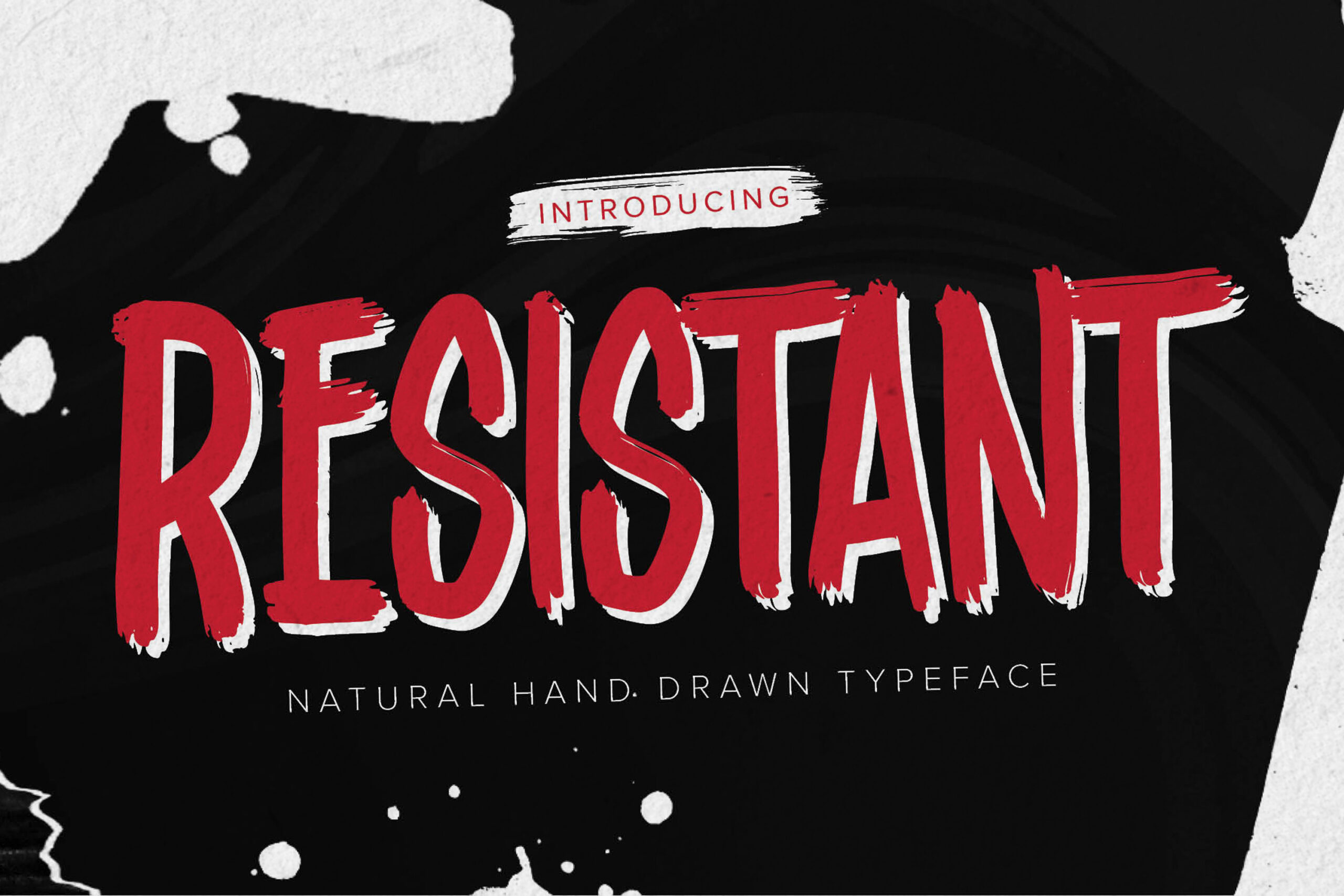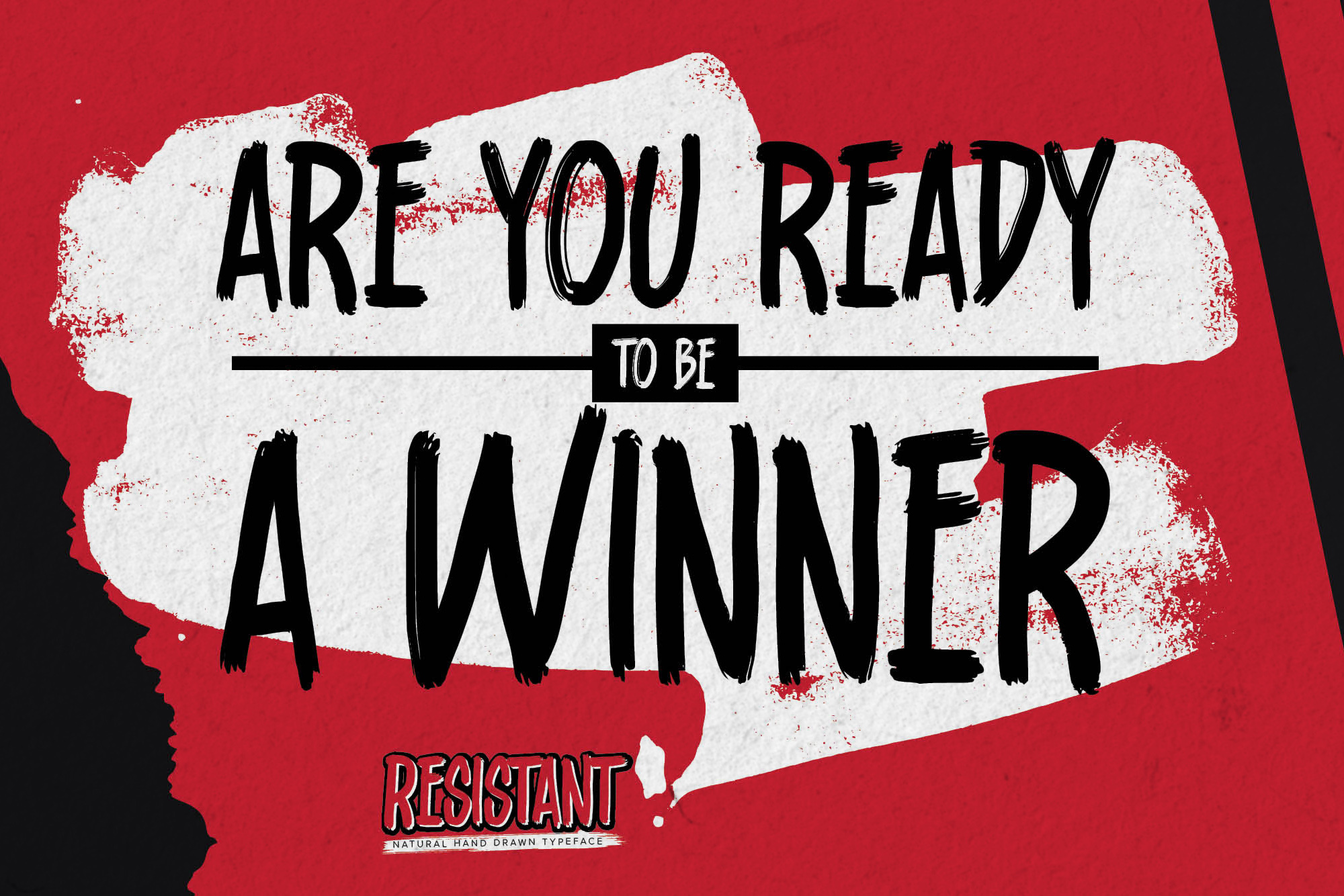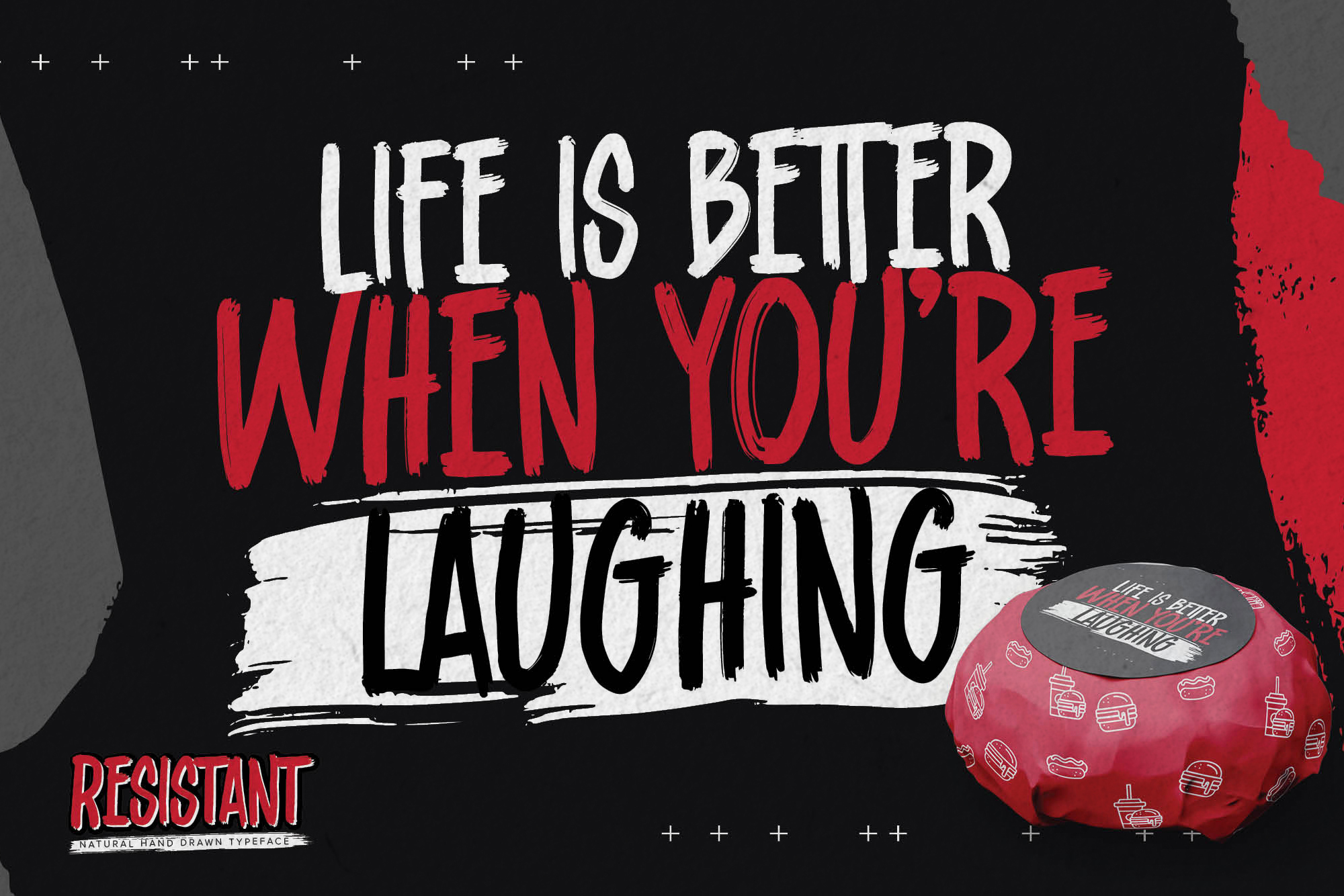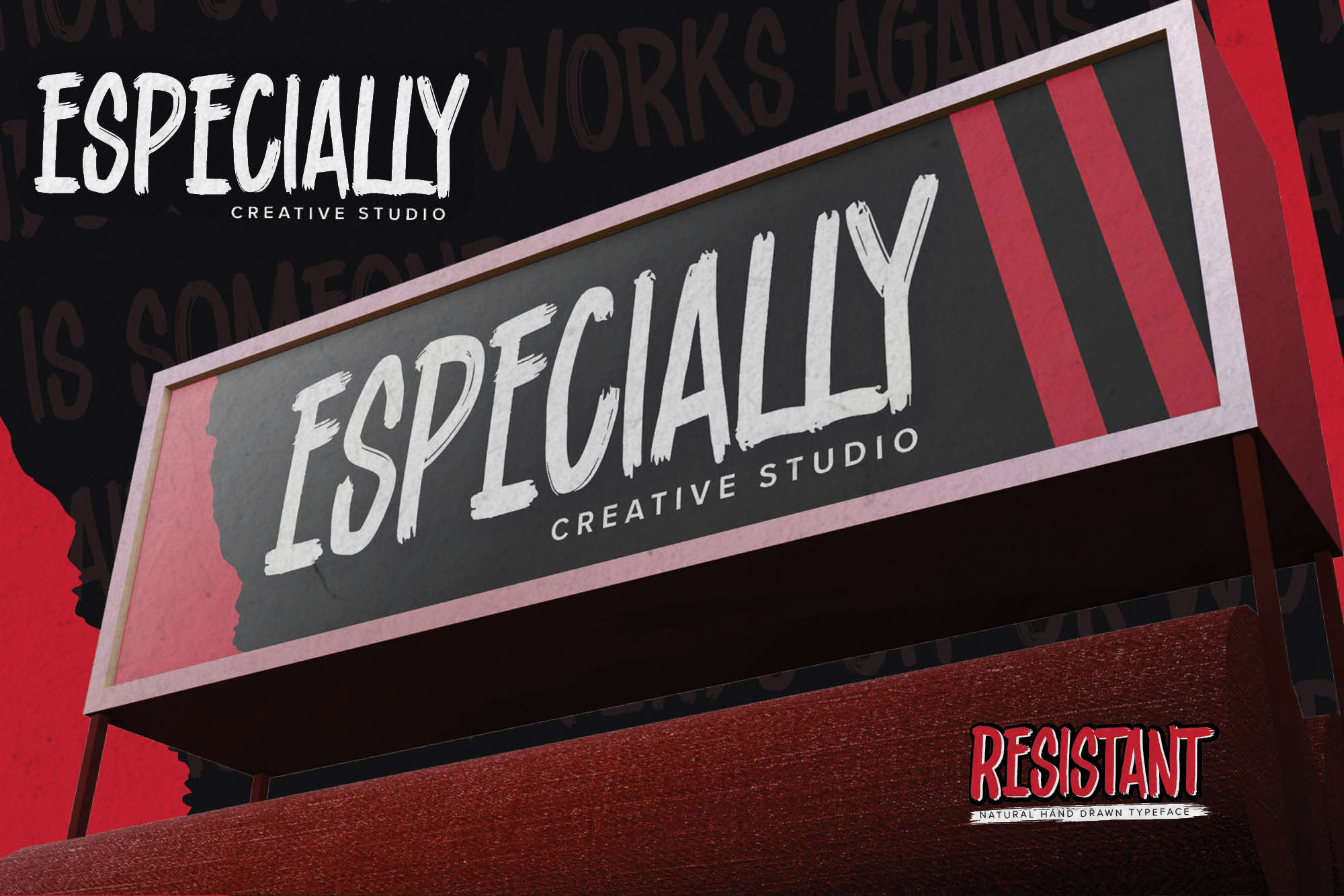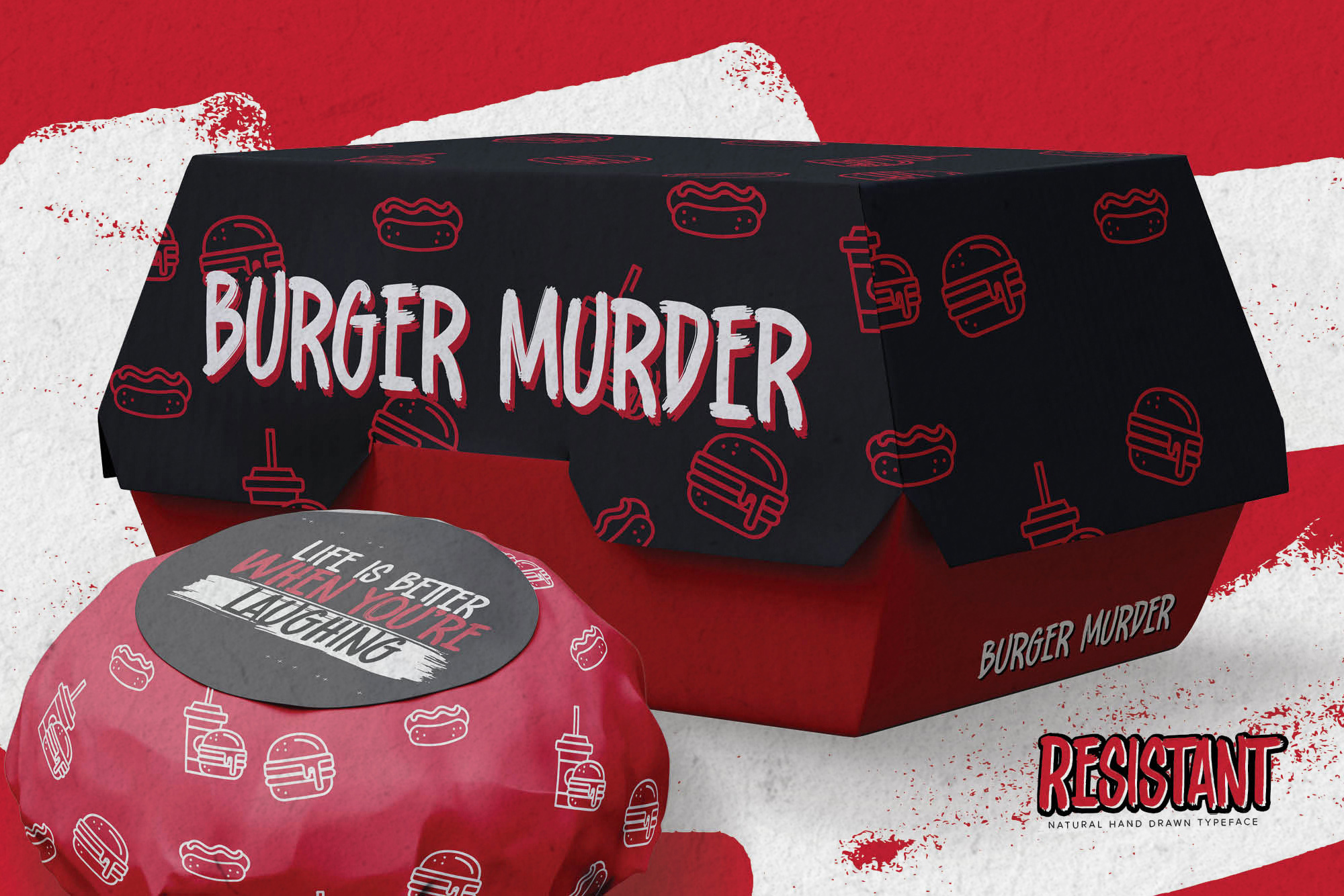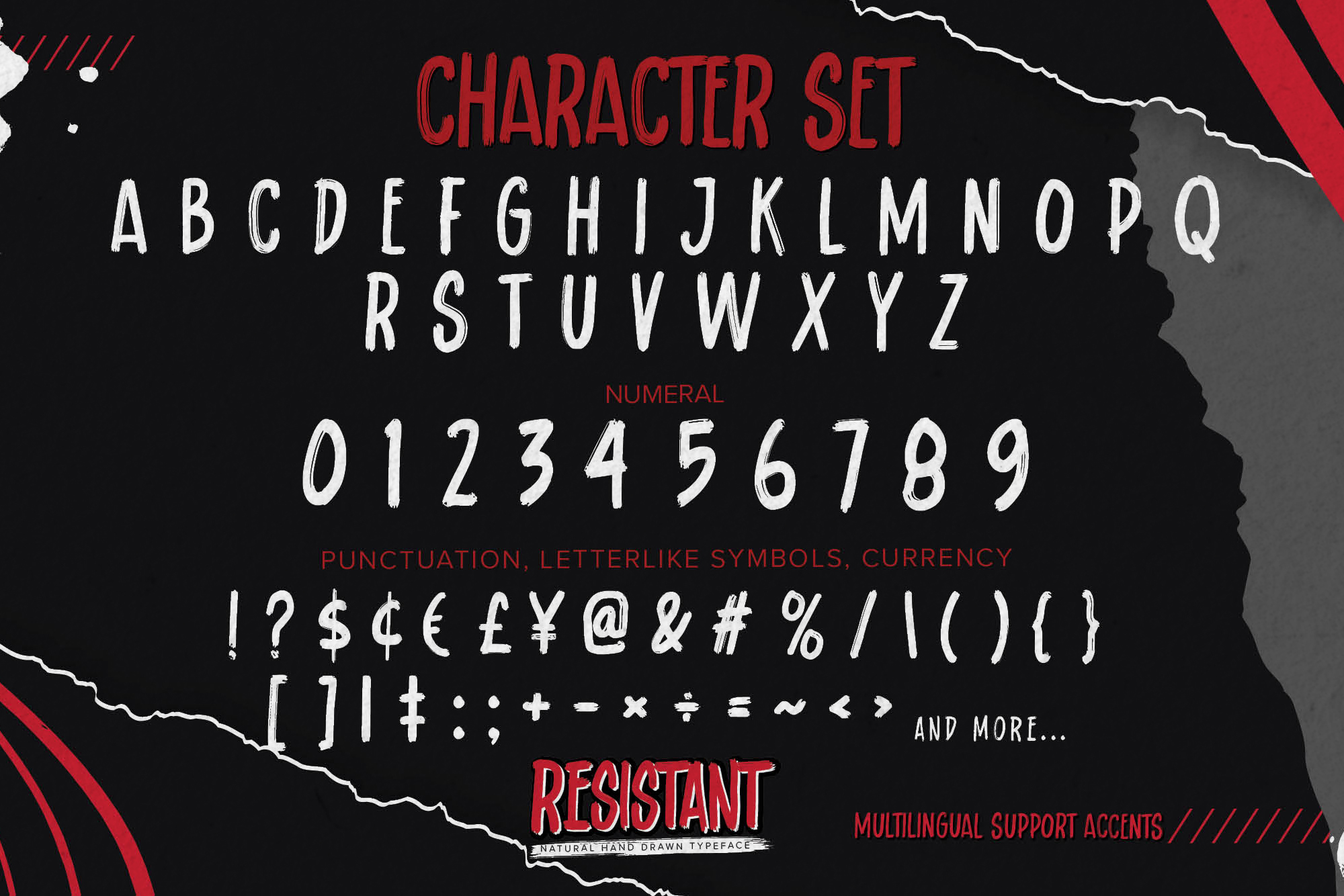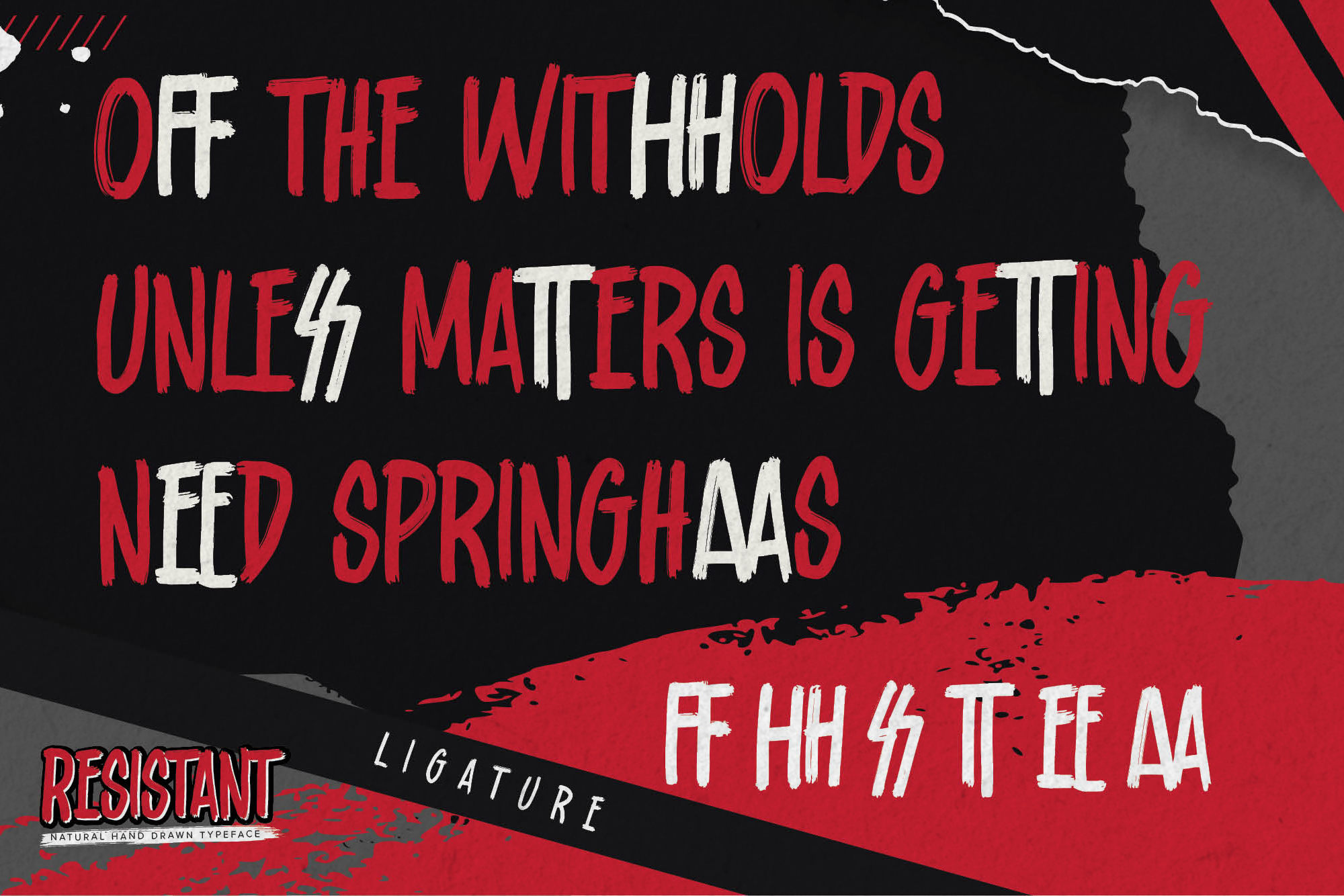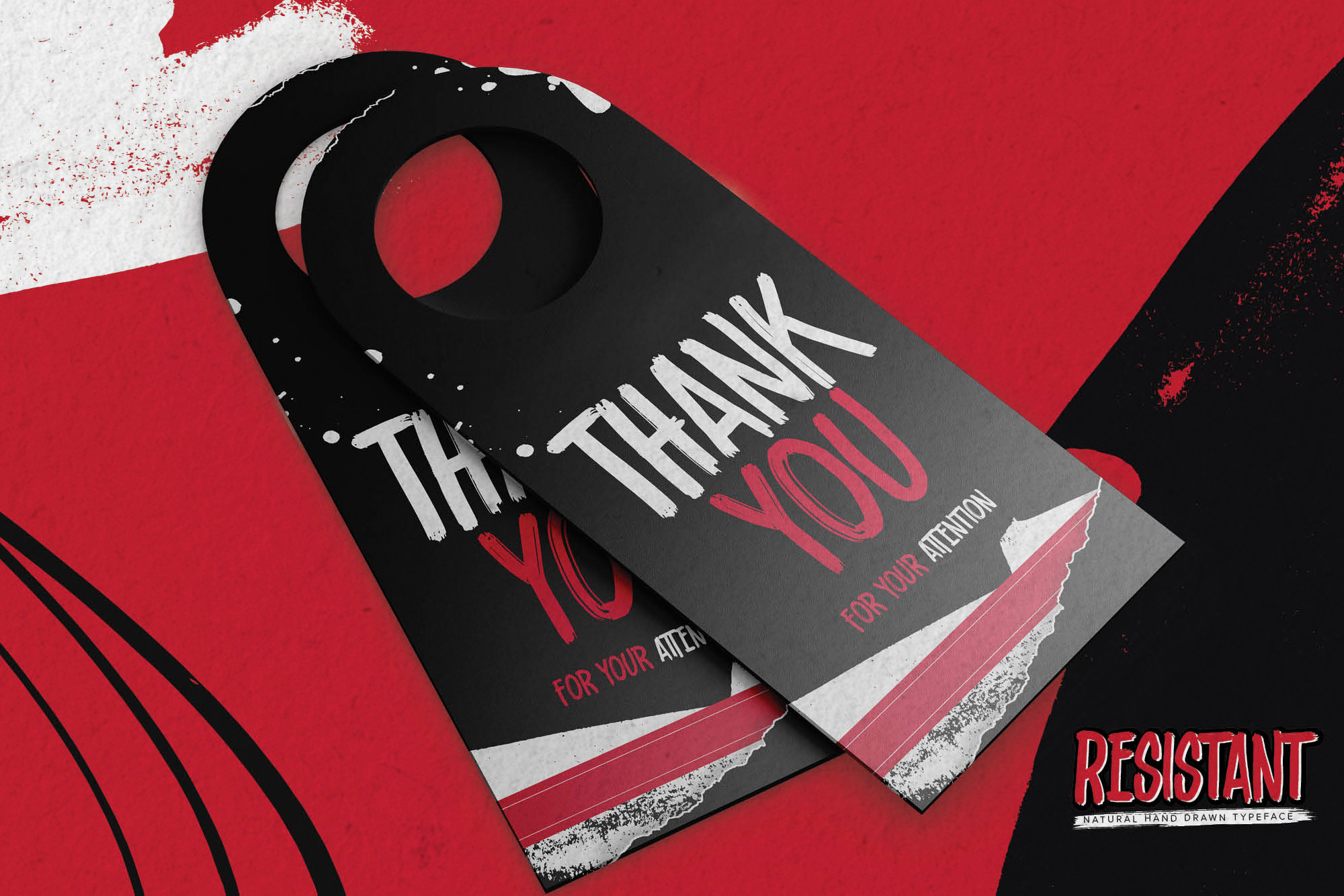
Resistant – Natural Hand Drawn Typeface is an Authentic brush Font that is written casually and quickly.
That is why Resistant has a authentic, and strong characteristic more natural look.
You can activate Ligatures OpenType panel.
Resistant Perfect for designs, branding projects, Logo design,Quotes product packaging and another Project that require cool strong brush font.